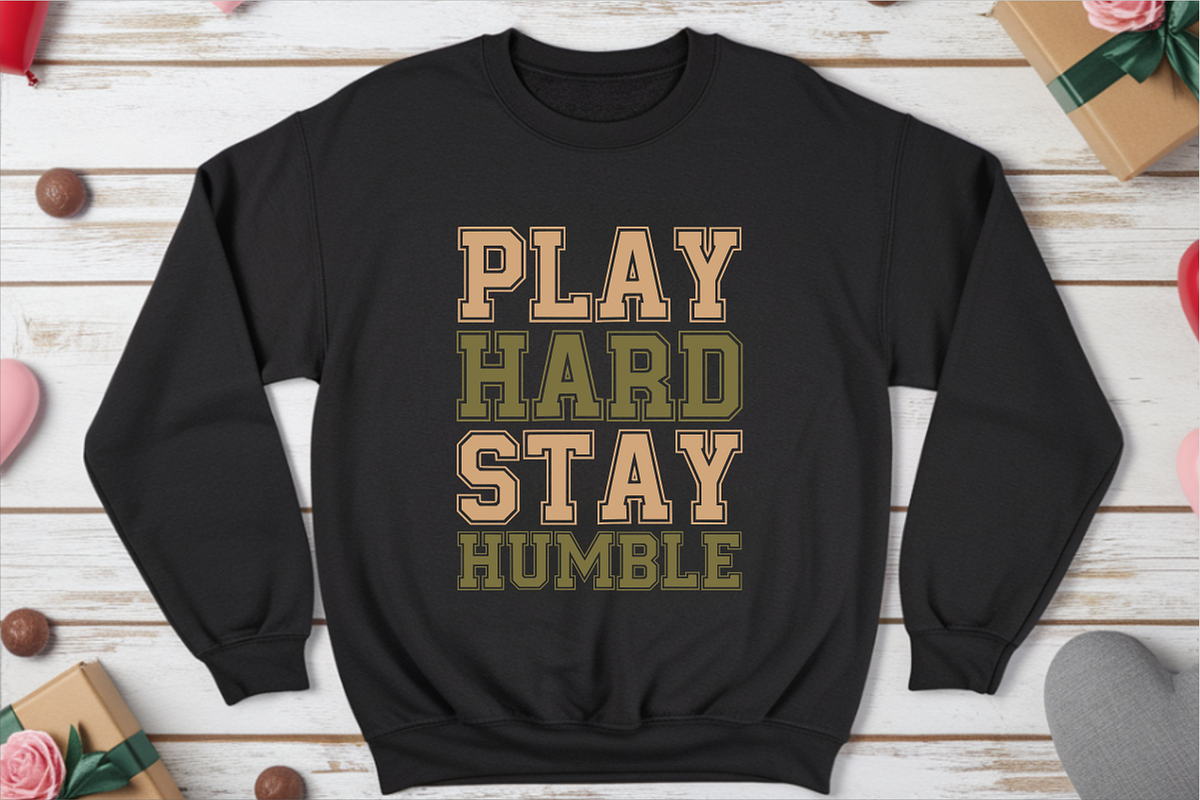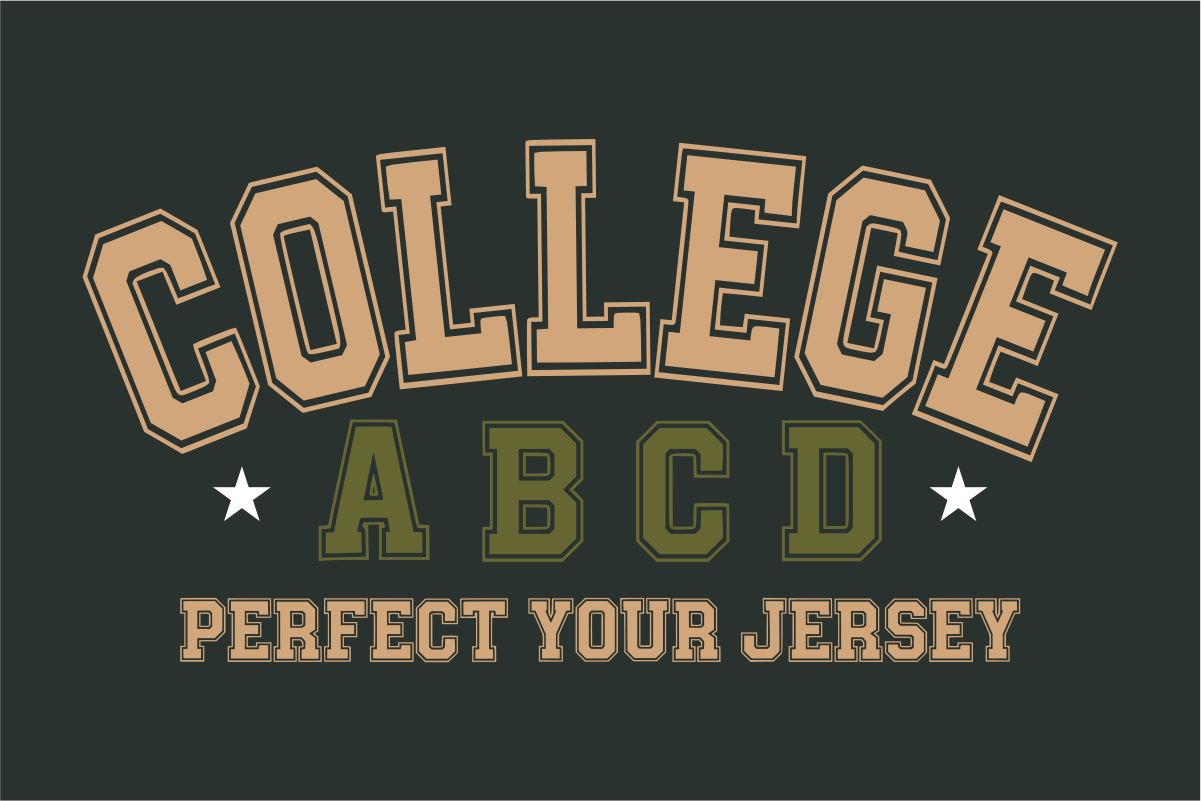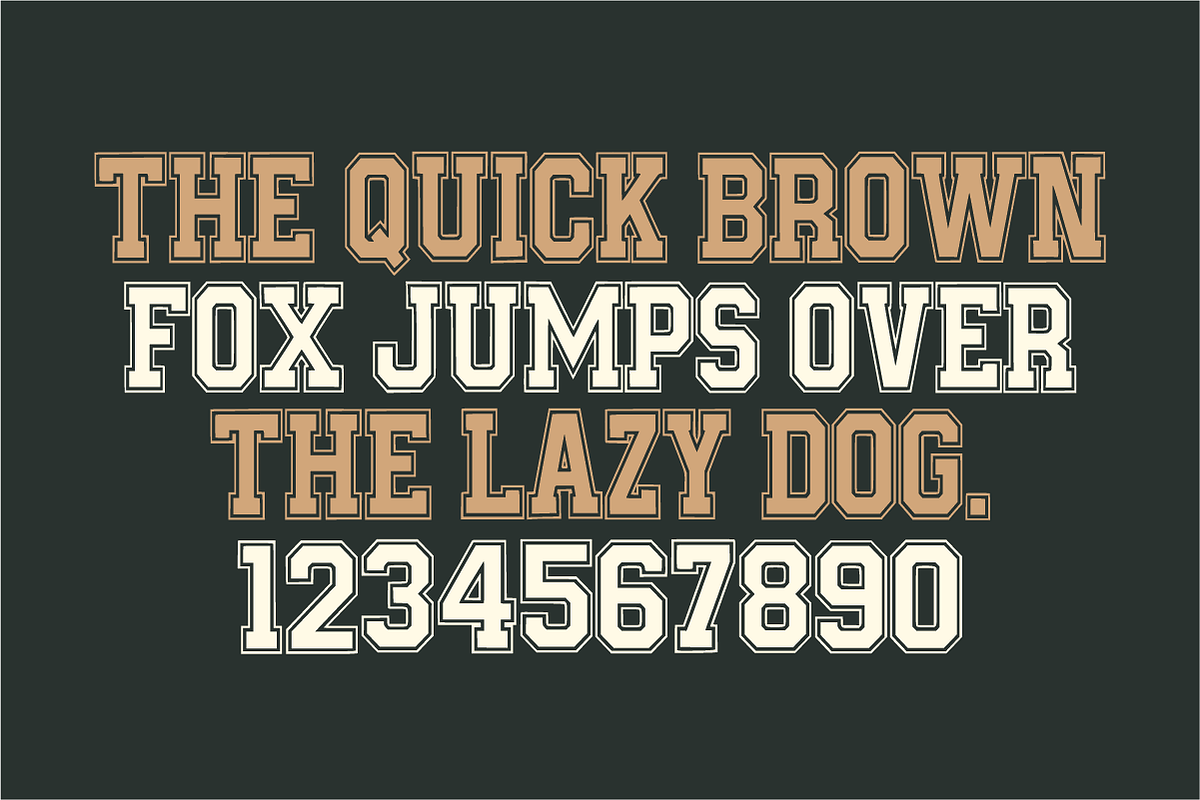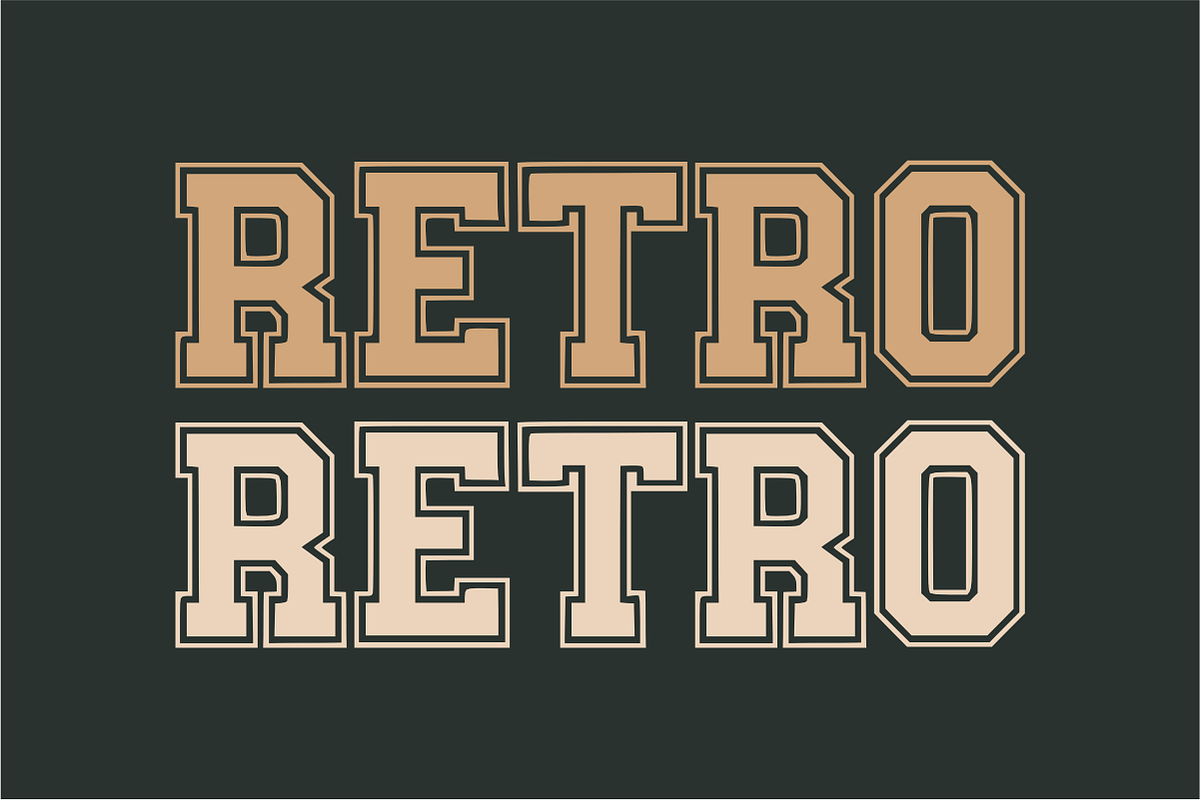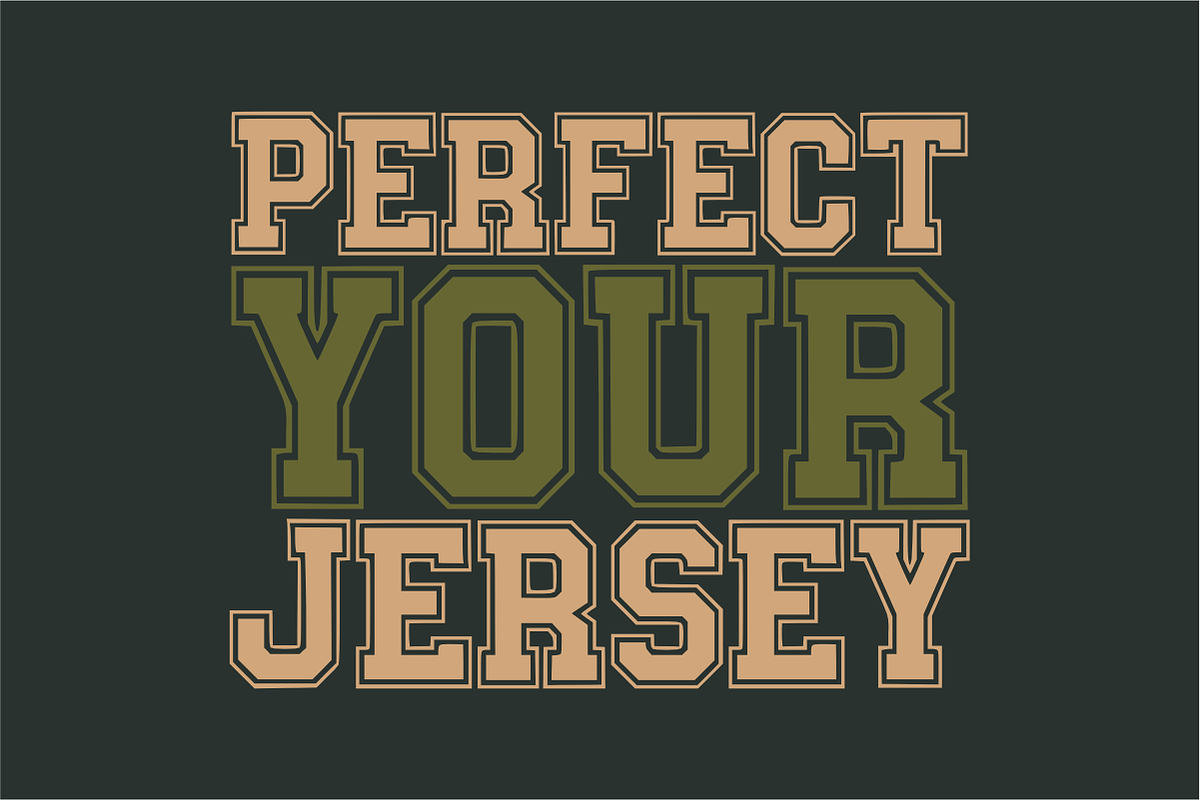
College ABCD โ Varsity Display Font
College ABCD โ Classic Athletic & Varsity Display Font ๐๐
Bring the winning spirit of the varsity league to your designs!
College ABCD is a bold, high-impact slab serif display font inspired by classic American collegiate and athletic typography. With its strong block structure and clean geometric lines, this font captures an authentic varsity aesthetic that is both timeless and professional. Whether you are designing for a sports team or creating trendy streetwear, College ABCD provides the authoritative look you need to stand out.
๐ Why College ABCD is a Winning Choice:
Authentic Varsity Aesthetic: Perfectly replicates the traditional "letterman" look used in university sports and collegiate branding.
Bold & Commanding Presence: Its thick, slab-serif structure ensures maximum readability for large-scale print and high-visibility headers.
Clean & Professional: Meticulously designed for a crisp finish, making it easy to layer for "outline" or "shadow" jersey effects.
๐จ Perfect For:
๐ Sports Branding & Jerseys: Create professional-grade logos, player numbers, and team names for apparel.
๐ Streetwear & Apparel: High-impact graphics for t-shirts, varsity jackets, and hoodies.
๐ผ๏ธ Posters & Event Flyers: Bold headlines for tournaments, gym advertisements, and campus events.
๐ธ Social Media Content: Eye-catching YouTube thumbnails and strong editorial titles for Instagram or Pinterest.
๐ท๏ธ Merchandise: Perfect for stickers, caps, and school-spirited promotional items.
Character Set: Strong All-Caps Uppercase Letters (A-Z) in a classic athletic style.
Numbers & Symbols: Full set of numerals (0-9) and essential simple punctuation.